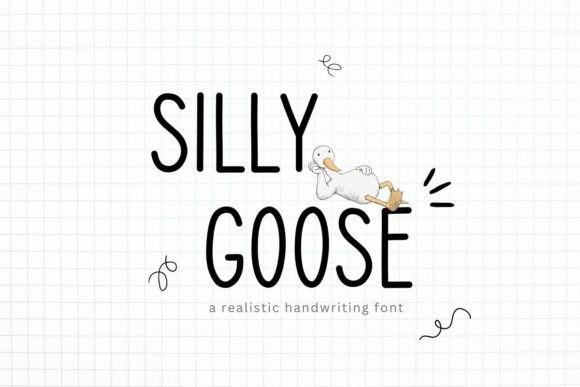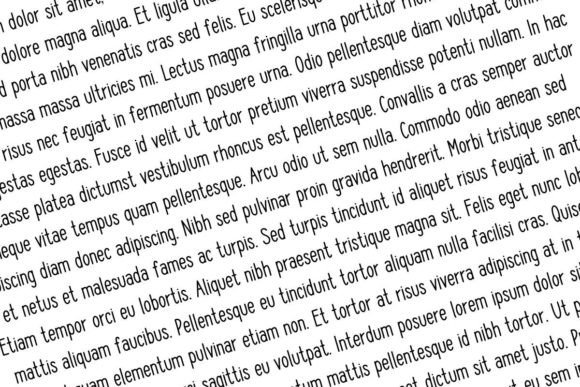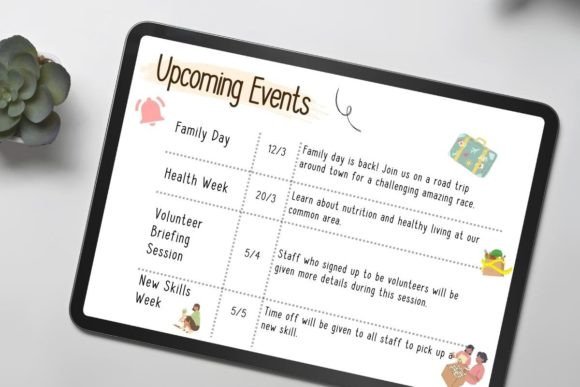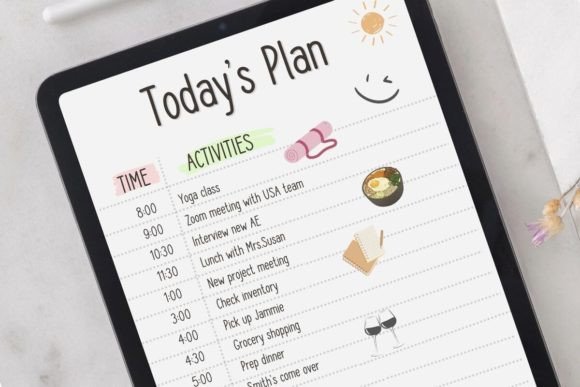
Silly Goose Font: A Cute Handwritten Font for Crafts & Cricut Projects
About the Silly Goose Font
The wait is over! The incredible Silly Goose Font is now available for your design toolkit. Silly Goose is a simple, neat handwritten font, perfect for digital note-taking. You can use this font in various projects – blog posts, logos, branding, digital planners, invitations, greeting cards, planners, photo albums, decorations, and much more.